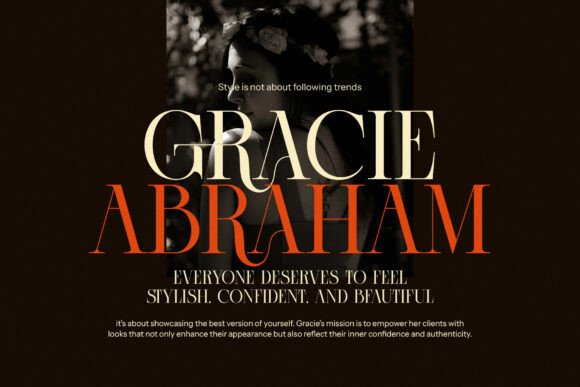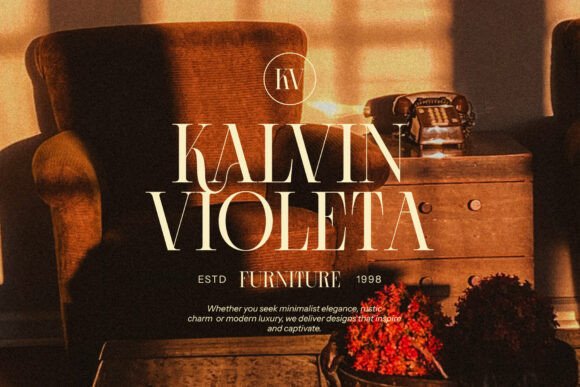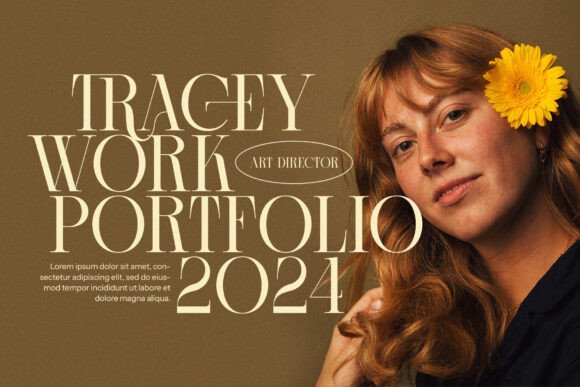
Introduction to Kagro Font
Kagro is a sophisticated typeface that blends modern design with timeless elegance.
Its sleek and graceful letterforms are enhanced by beautifully crafted ligatures and unique alternate options, giving your creative projects an artistic and distinguished edge Every detail in Kagro is thoughtfully designed to exude class and refinement, making it a standout choice for high-end designs.
Kagro Font offers exceptional quality and versatility, making it a valuable addition to your design toolkit. Whether you’re creating for personal projects or commercial use, Kagro Font delivers professional results.